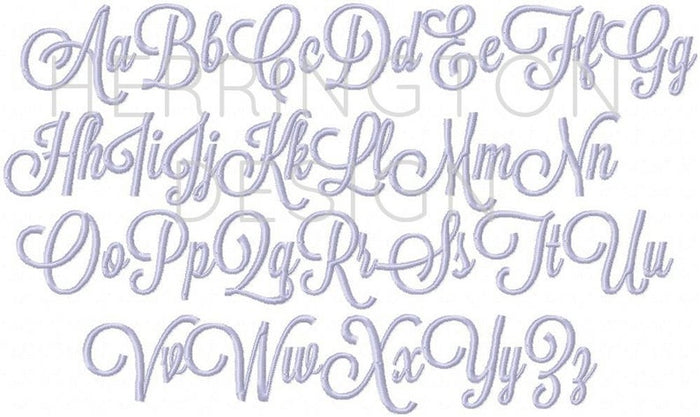
Emily Bold Embroidery Font 4x4
Unleash your creativity with the Emily Bold Embroidery Font 4x4, an elegant and thicker variation of our popular Emily Script Font. This font package includes both uppercase and lowercase letters (A-Z) in various sizes, ensuring you have the resources to make exquisite monograms.